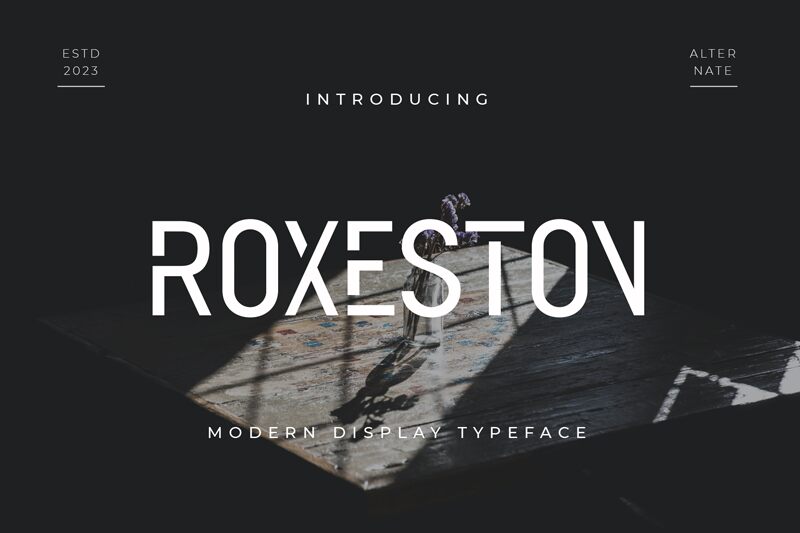
ROXESTON
Dive into the sleek elegance of Roxeston, a semi-light sans serif font crafted with precision by ToniStudio. Roxeston emerges as a beacon of modern typography, marrying bold authenticity with an air of sophistication. Designed to meet the pulse of market trends, this font stands out with its classy demeanor and effortless readability.
Its stylish allure makes Roxeston an impeccable choice for a spectrum of creative endeavors. Whether it's elevating logo branding, infusing grace into template designs, or adding character to esports and book covers-Roxeston's versatility knows no bounds. The font's attractive features and ease of use promise to inject your projects with a distinctive charm that resonates across brands and quotes alike.
Embrace the potential that Roxeston offers; let it propel your designs beyond the ordinary, ensuring they not only capture attention but also hold it. Welcome to the next level in design excellence with Roxeston Font.